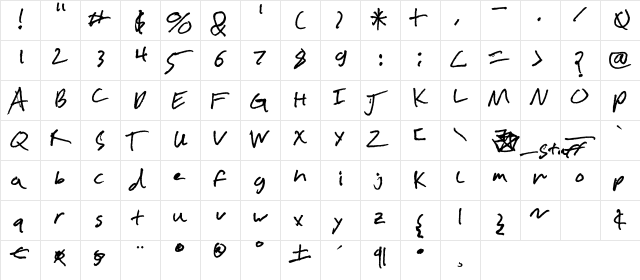
Chicken Scratch Regular Font Preview
Chicken Scratch Regular
Design Context for Chicken Scratch Typeface
Chicken Scratch is a composed and adaptable typeface that performs quietly and consistently across a wide range of design contexts.
Pro Tip: Use Chicken Scratch in both headline and body roles to test its range before committing to a single application.